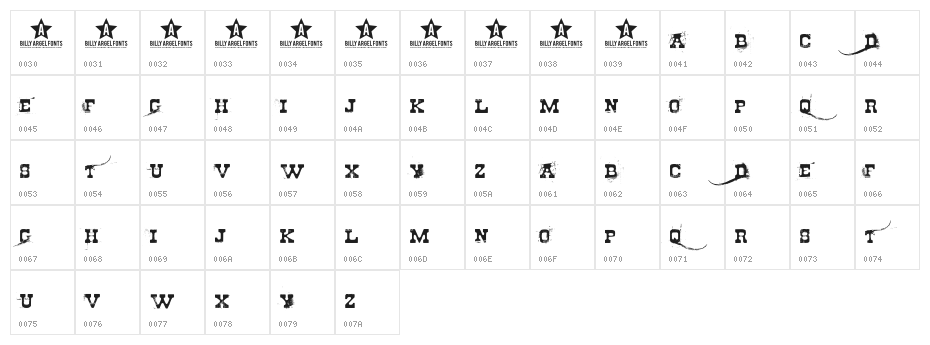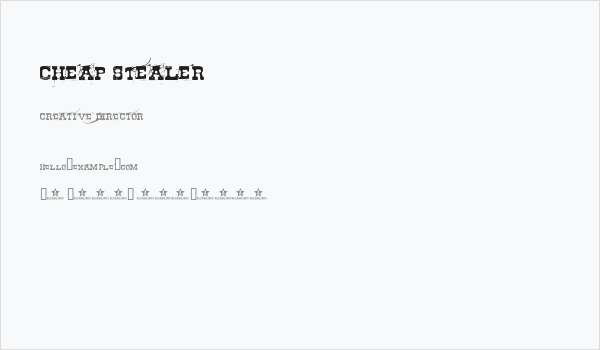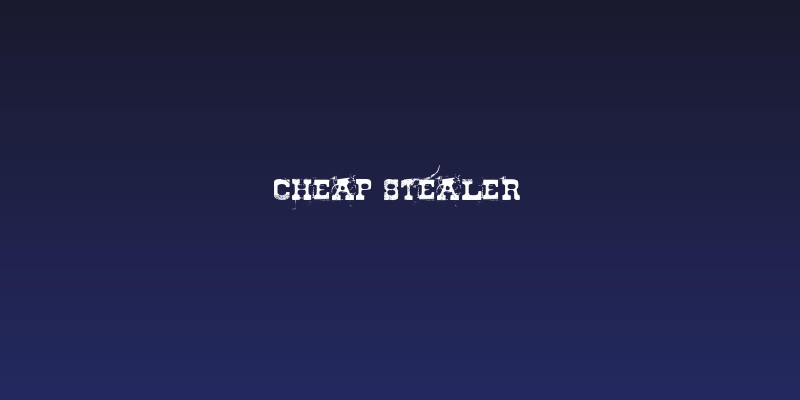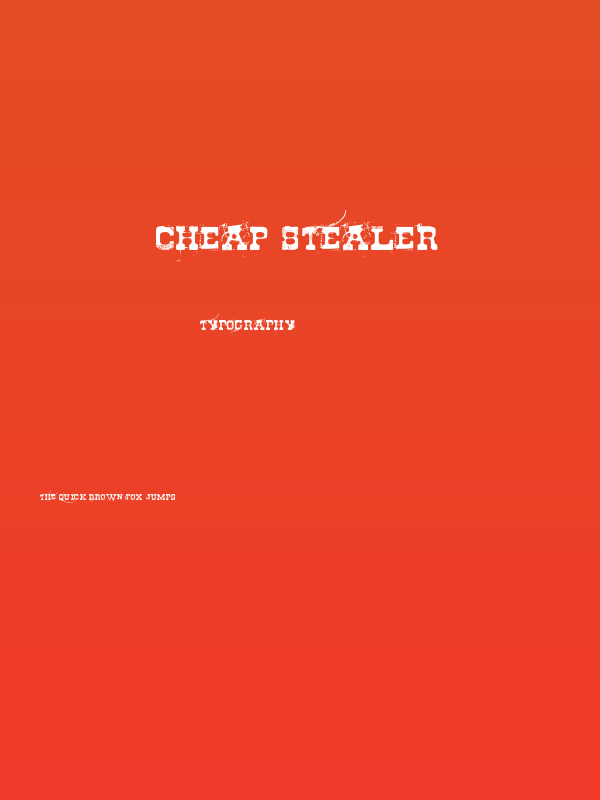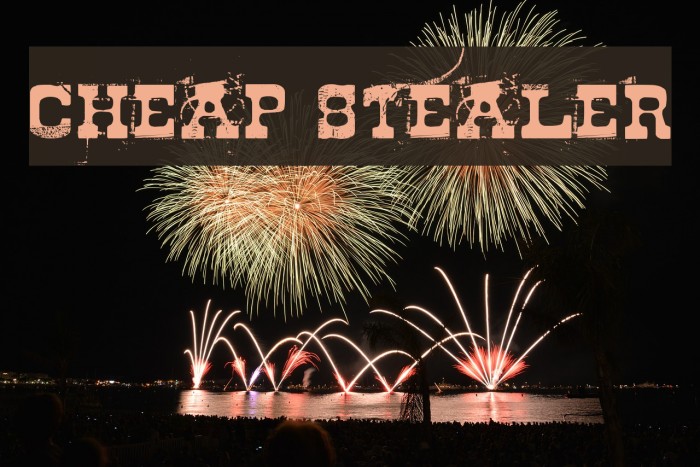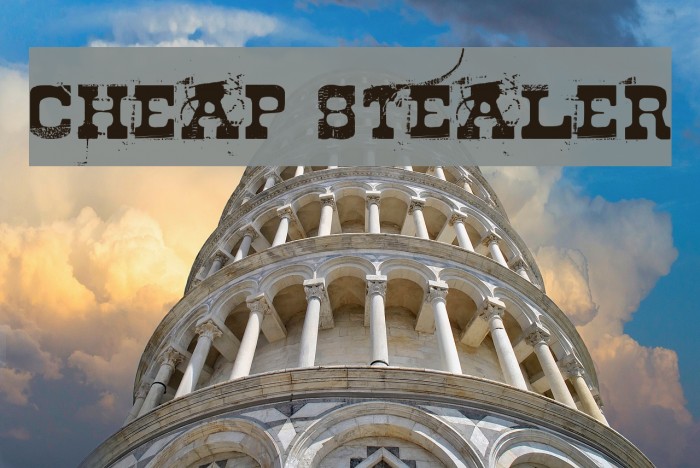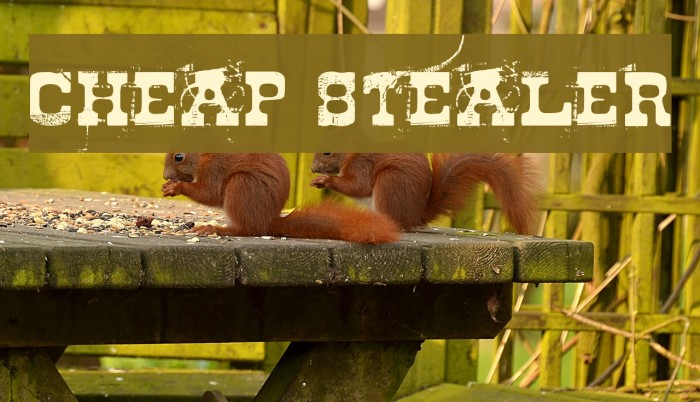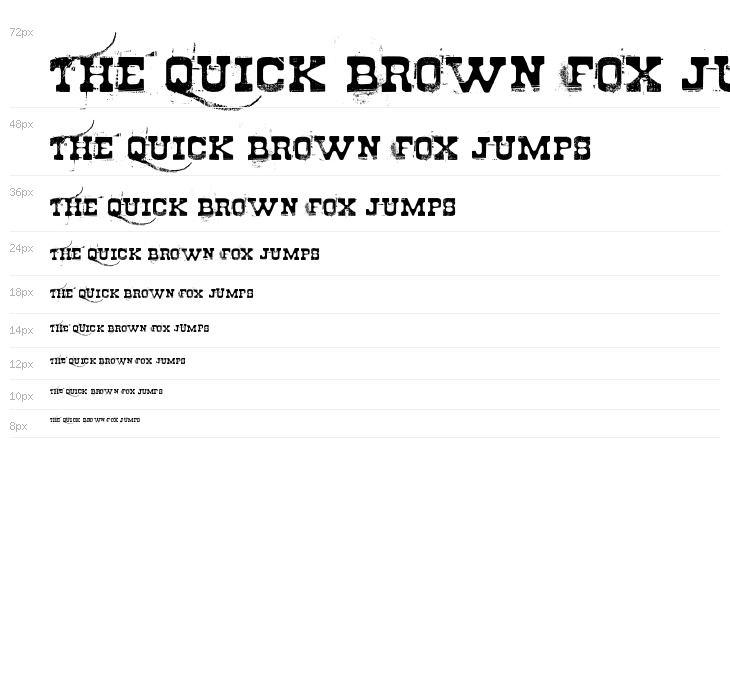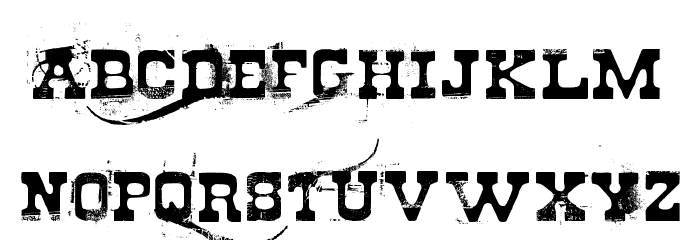
Cheap stealer Font
Cheap stealer Description
This font features a bold, distressed style with a vintage, grunge aesthetic. The uppercase letters are characterized by a strong, slab serif design, with each character exhibiting a worn, textured appearance that suggests a sense of age and ruggedness. The font's unique style is accentuated by irregular edges and a slightly rough texture, giving it a handcrafted feel. The overall design is reminiscent of old western or industrial typefaces, making it ideal for projects that require a bold, impactful look. The font's distressed nature adds character and depth, making it suitable for designs that aim to convey a sense of history or authenticity.
| Proposed Projects | Ideal for vintage posters, album covers, branding for rustic or industrial-themed businesses, and any design requiring a bold, historical touch. |